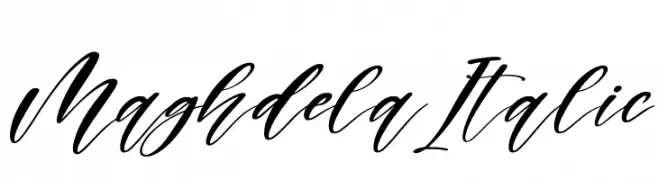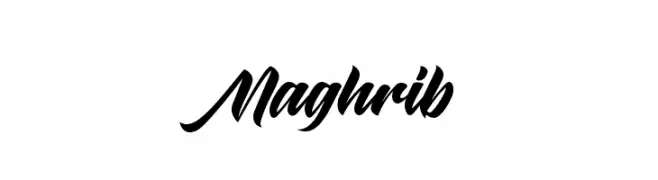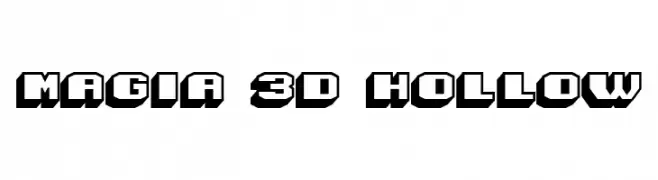
A dynamic and elegant script font with fluid, cursive strokes and an italic slant.
A bold, dynamic script font with flowing, interconnected letters.
A modern, elegant font with high contrast and sleek, elongated characters.
A bold and expressive script font with dynamic, flowing letterforms.
A bold, 3D font with sharp edges and a modern, impactful style.
A bold, 3D hollow font with a geometric, blocky style.
A bold, 3D hollow italic font with a dynamic and modern style.
A bold, 3D hollow font with a dotted interior and shadow effect, reminiscent of neon signage.
A bold, 3D italic font with a hollow, neon-like appearance and dotted interiors.
A bold, 3D italic font with a dynamic and futuristic style.